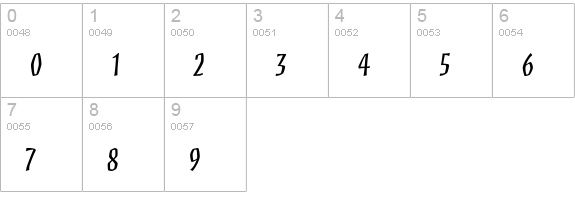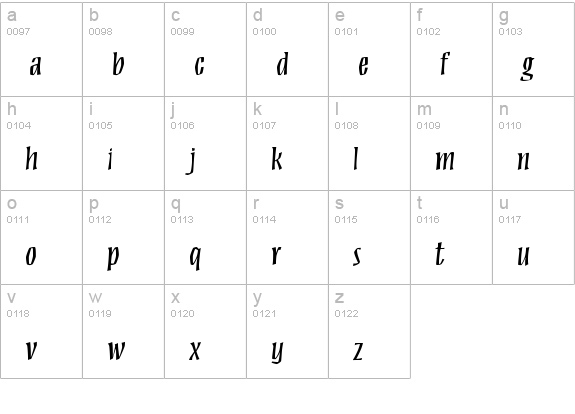
Mezz Std Font Details
Mezz Std is a sleek and modern font that exudes sophistication and elegance. With its clean lines and balanced proportions, this versatile typeface is perfect for a wide range of design projects. The Mezz Std font is ideal for branding, editorial design, packaging, and much more. The best part? Mezz Std is available for free download at FontsMarket.com! You can easily access this stylish font and elevate your designs without any cost. Don't miss out on the opportunity to add Mezz Std to your collection and bring a touch of refinement to your projects.